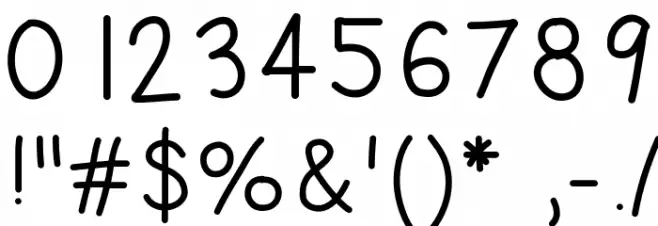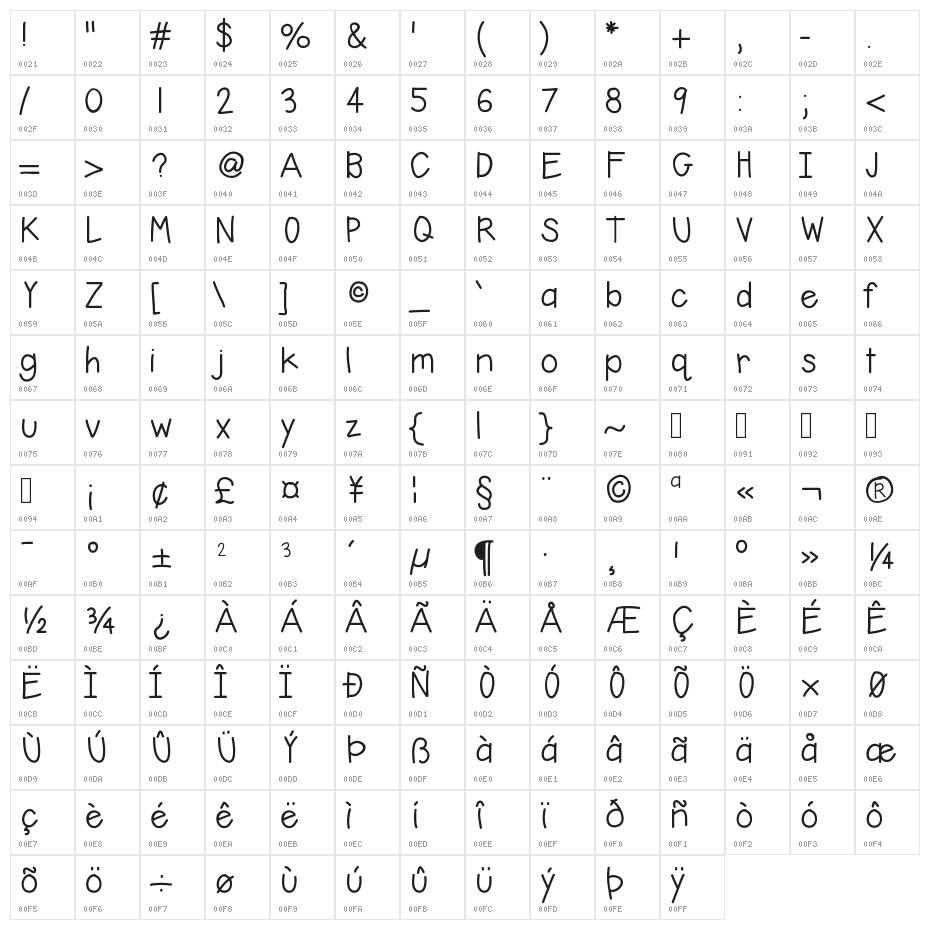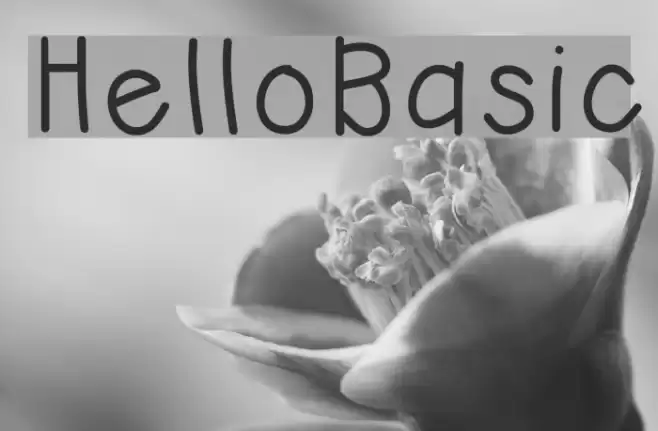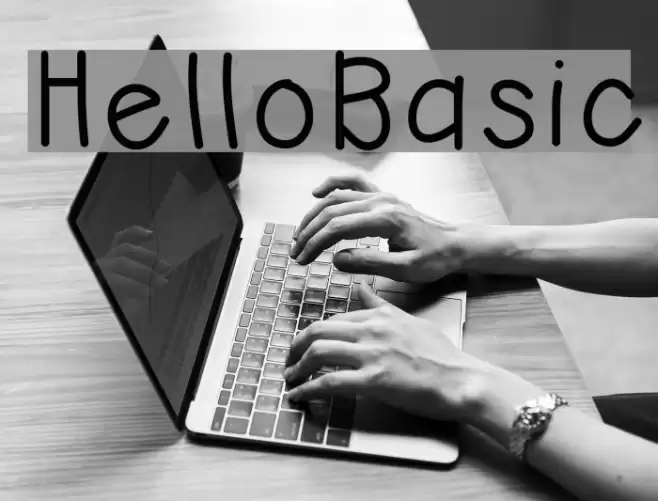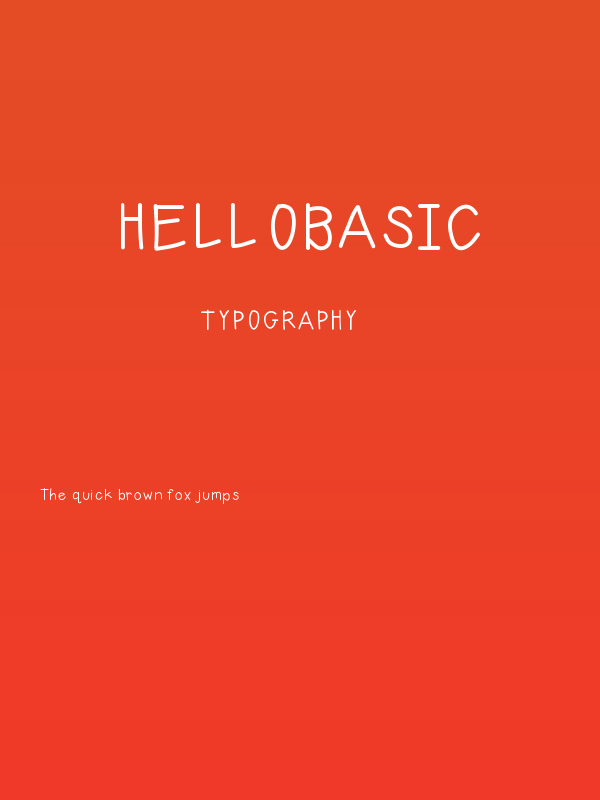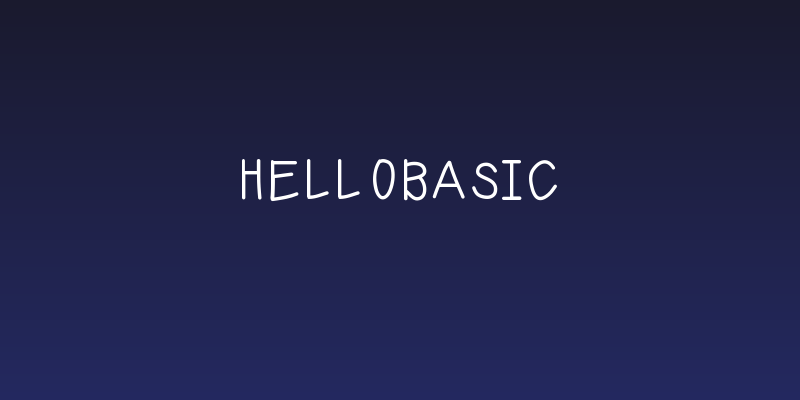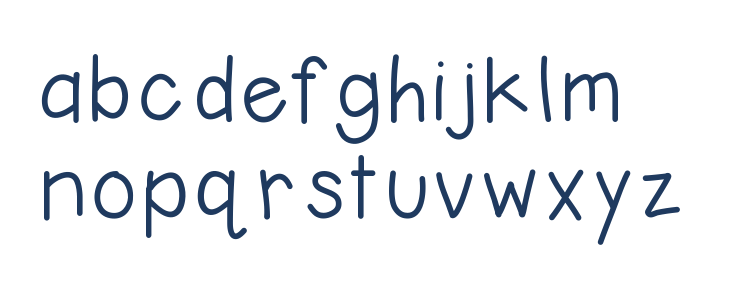
HelloBasic Font
HelloBasic Description
This font features a playful and casual handwritten style, characterized by its rounded and slightly irregular letterforms. The strokes are consistent in weight, giving it a uniform appearance while maintaining a friendly and approachable feel. The characters are well-spaced, ensuring readability, and the overall design is simple yet effective for conveying a relaxed tone. The font includes a full set of uppercase and lowercase letters, numerals, and a variety of punctuation marks and symbols, making it versatile for various applications.
| Use Case | Headlines, Informal text, Branding |
| Proposed Projects | Ideal for children's books, greeting cards, informal invitations, and playful branding projects. |